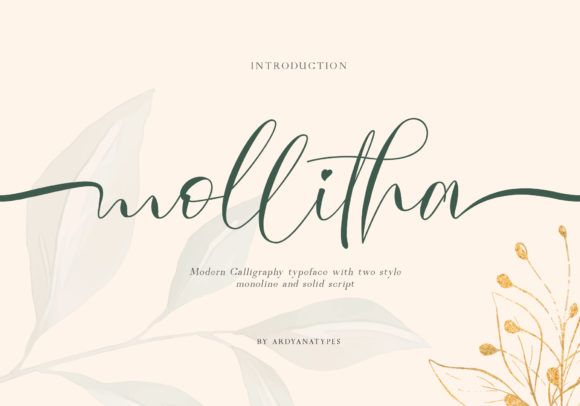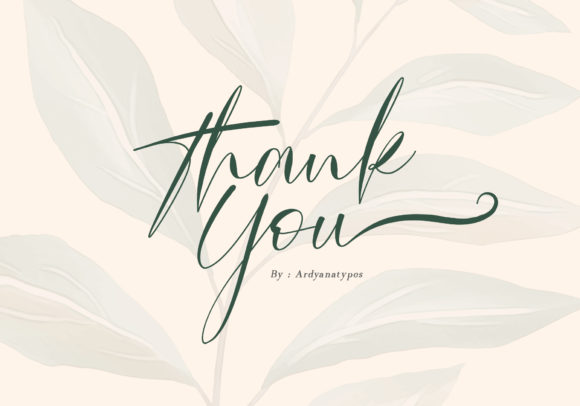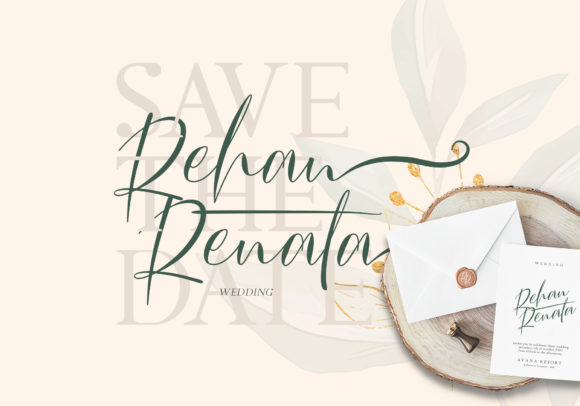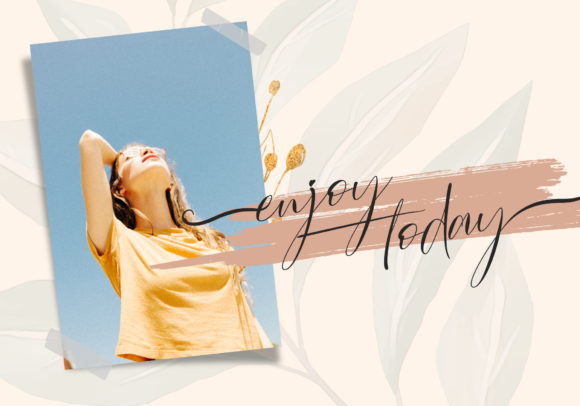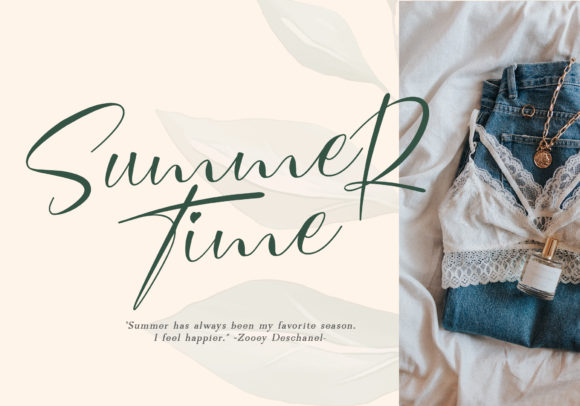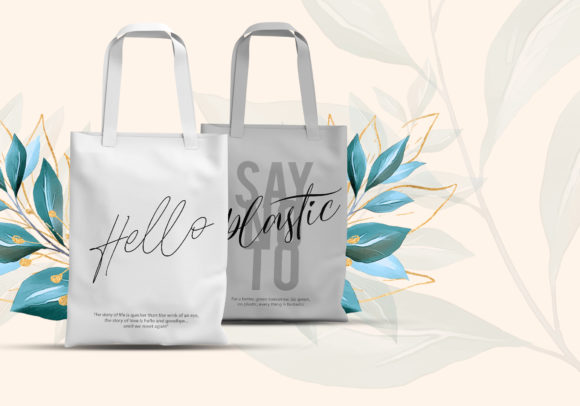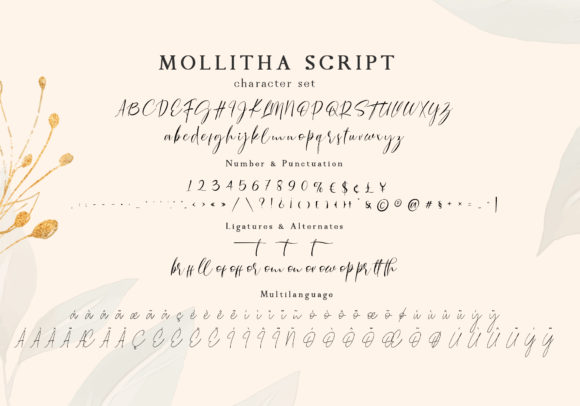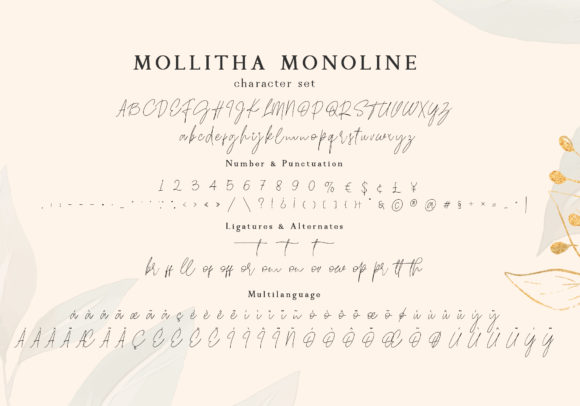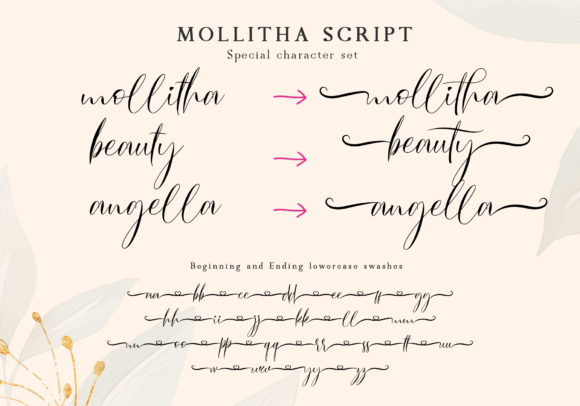
Mollitha Font
About Mollitha Font
Mollitha simplifies elegance into one truly outstanding script font. It maintains its classy calligraphic influences while feeling contemporary and fresh. This versatility will appeal to a wide range of crafty ideas, from letterheads and titles, to stationery.